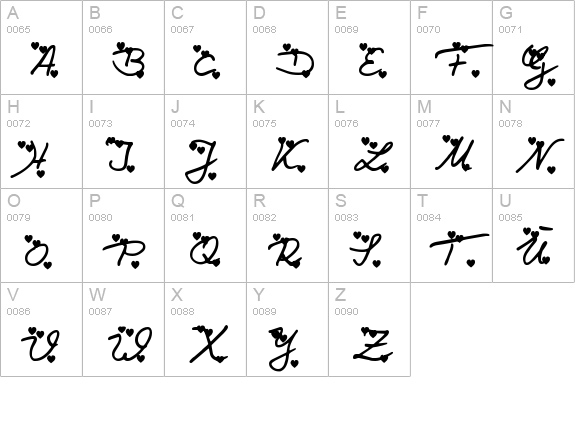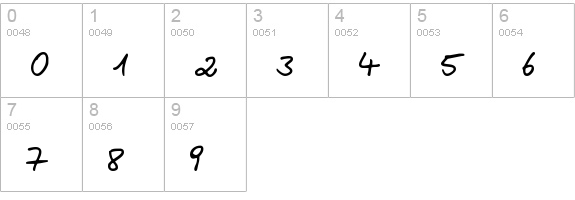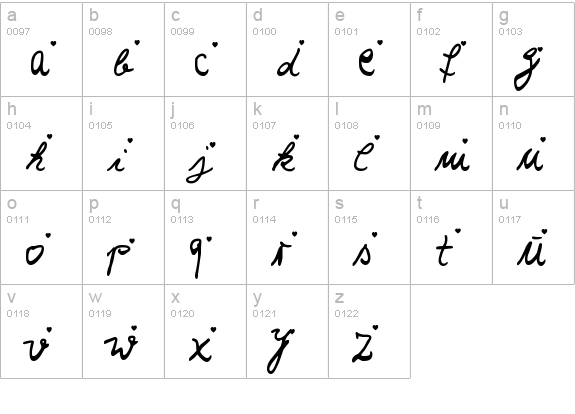
Iloveyou Font Details
Introducing the enchanting and expressive Iloveyou font, a delightful typeface that is sure to capture hearts and spread love through its charming design. With its elegant and romantic curves, this font exudes warmth and affection, making it the perfect choice for any project that seeks to convey love, tenderness, or heartfelt emotions. Iloveyou font stands out with its unique blend of softness and boldness, creating a harmonious balance that is visually captivating. Its graceful letterforms flow with a gentle rhythm, evoking a sense of joy and passion. Whether used for wedding invitations, greeting cards, love letters, or any other creative endeavor, this font will infuse your designs with an irresistible charm. What makes Iloveyou font even more appealing is that it is available for free download at FontsMarket.com. Yes, you read that right! This beautiful typeface can be yours without spending a dime. FontsMarket.com, a trusted source for high-quality fonts, offers this incredible opportunity to access Iloveyou font with just a few clicks. Now, you can add a touch of love and romance to your projects without breaking the bank. With its versatility and elegance, Iloveyou font is suitable for a wide range of applications. From branding and logo design to social media graphics and advertisements, this font will elevate your visual communication to new heights. Its carefully crafted details and exquisite aesthetics ensure that your message will be conveyed with utmost clarity and impact. So, why wait? Embrace the power of love and creativity with Iloveyou font. Download it freely at FontsMarket.com and let your designs speak volumes about the beauty of affection and the magic of heartfelt connections.